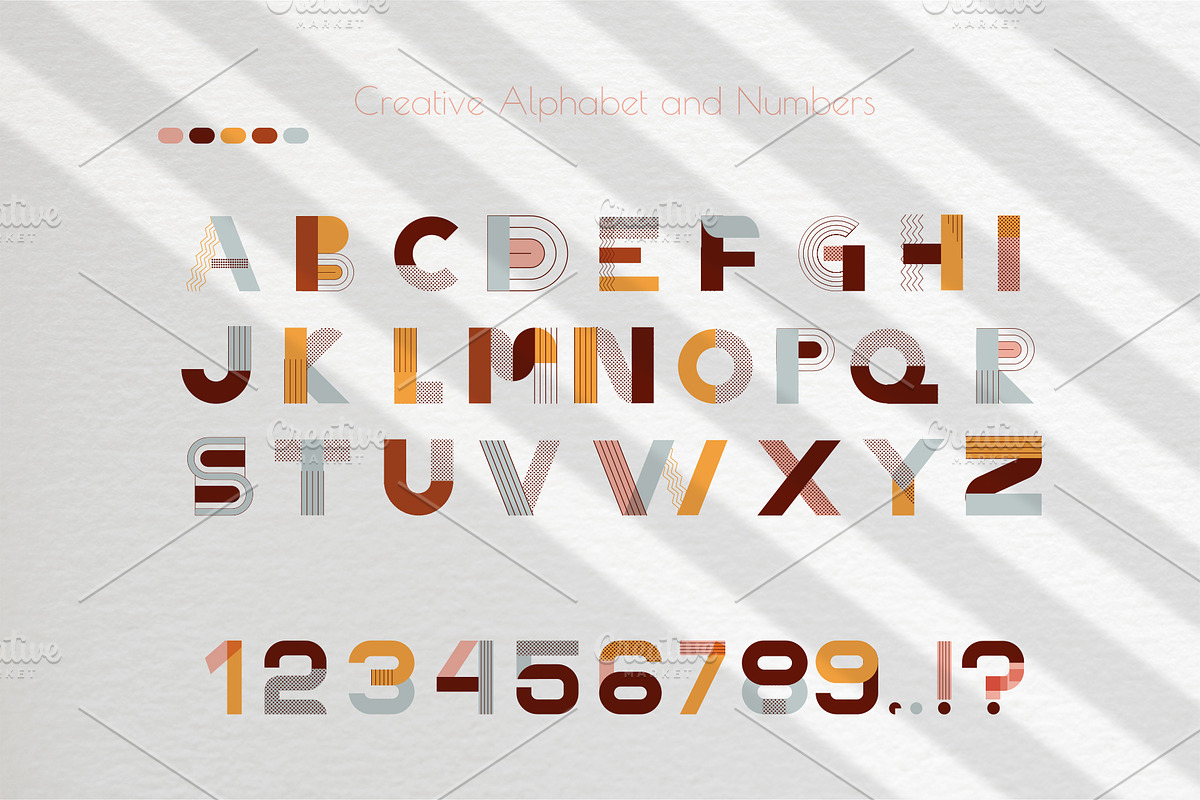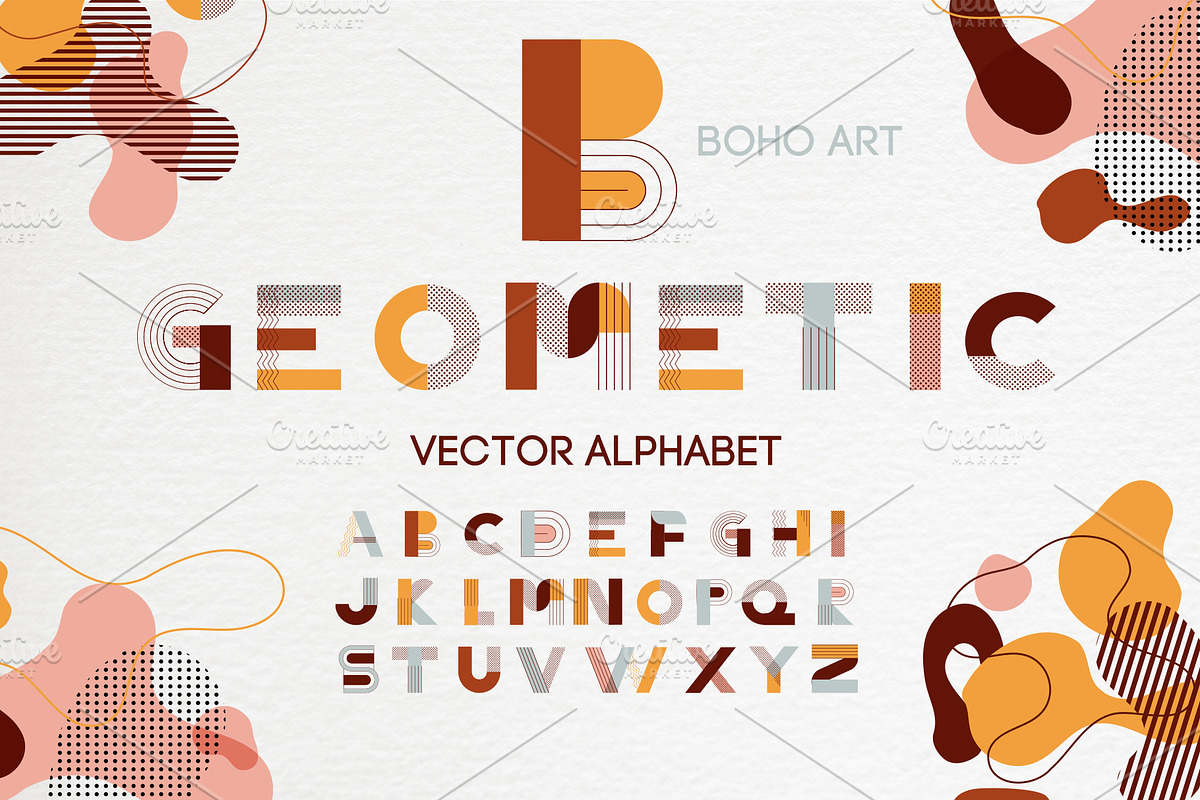
Geometric Alphabet - BOHO abstract
Colorful Vector Letters - Abstract Geometric Boho
- 26 creative geometric letters and 0-10 numbers (eps,svg, PNG transparent background, 300 dpi)